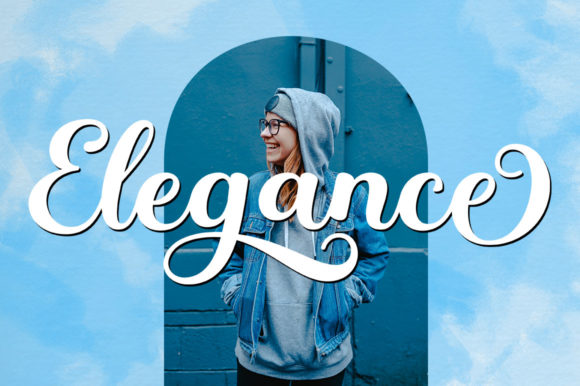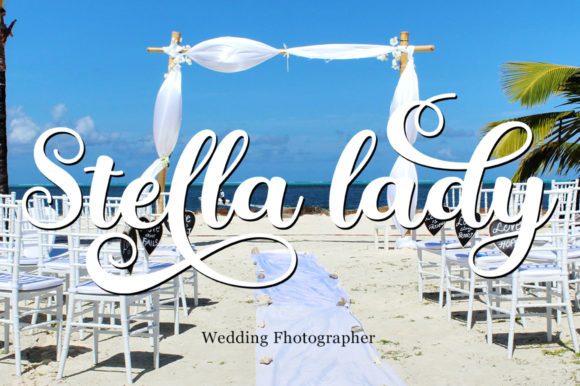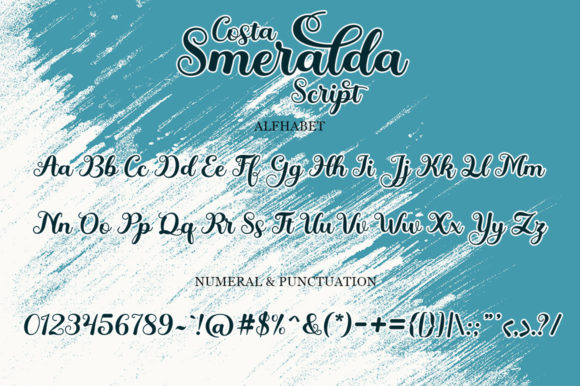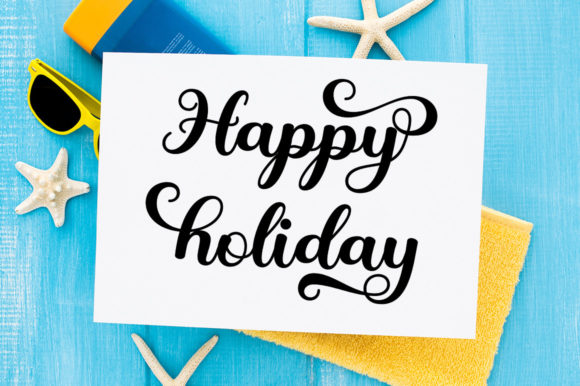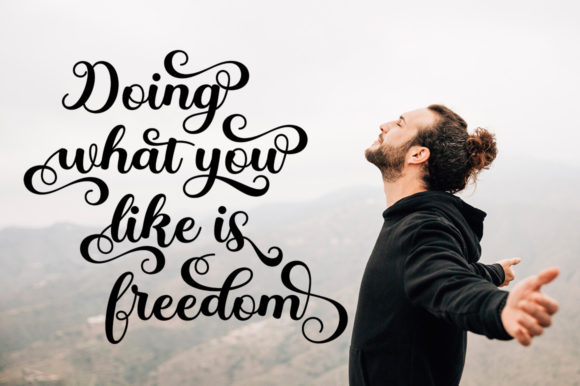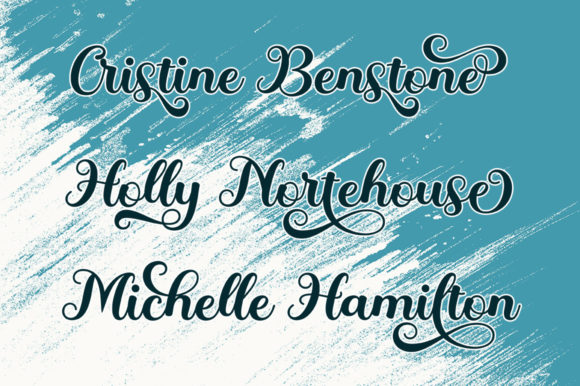
Costa Smeralda Script Font: Elevate Your Designs with Elegance and Sophistication
Are you a designer or crafter looking for a font that exudes class, elegance, and sophistication? Look no further than the Costa Smeralda Script Font. This beautifully designed round lettered handwritten font is sure to become a true favorite in your collection. With its perfect blend of traditional calligraphic influences and modern flair, Costa Smeralda Script is the ideal choice for a wide range of design projects.
What Makes Costa Smeralda Script Font So Special?
Costa Smeralda Script Font is a masterfully designed font that boasts a unique and distinctive look. Its round lettered handwritten style gives it a friendly and approachable feel, while its calligraphic influences add a touch of sophistication and elegance. This font is perfect for designers and crafters who want to add a personal touch to their work without sacrificing professionalism.
One of the standout features of Costa Smeralda Script Font is its PUA (Private Use Area) encoding. This means that you can access all of the glyphs and swashes with ease, giving you complete creative control over your designs. Whether you’re looking to add a decorative touch or create a bold statement, Costa Smeralda Script Font has got you covered.
Key Features of Costa Smeralda Script Font
- Round Lettered Handwritten Style: Costa Smeralda Script Font features a beautiful round lettered handwritten style that is both friendly and elegant.
- Calligraphic Influences: This font boasts traditional calligraphic influences that add a touch of sophistication and class to your designs.
- PUA Encoded: With PUA encoding, you can access all of the glyphs and swashes with ease, giving you complete creative control over your designs.
- Contemporary and Fresh: Despite its traditional influences, Costa Smeralda Script Font feels contemporary and fresh, making it perfect for modern design projects.
Uses for Costa Smeralda Script Font
Costa Smeralda Script Font is a versatile font that can be used for a wide range of design projects. Here are just a few ideas to get you started:
- Wedding Invitations and Stationery: Add a touch of elegance and sophistication to your wedding invitations and stationery with Costa Smeralda Script Font.
- Branding and Packaging: Use Costa Smeralda Script Font to create beautiful and eye-catching branding and packaging for your business or product.
- Signage and Displays: This font is perfect for creating eye-catching signage and displays that are sure to grab attention.
- Digital Designs: Costa Smeralda Script Font can be used for a wide range of digital designs, including social media graphics, blog headers, and more.
Tips for Using Costa Smeralda Script Font
Here are a few tips for getting the most out of Costa Smeralda Script Font:
- Experiment with Different Sizes and Colors: Don’t be afraid to experiment with different sizes and colors to find the perfect look for your design.
- Pair with Other Fonts: Costa Smeralda Script Font pairs beautifully with other fonts, so don’t be afraid to get creative and try out different combinations.
- Use Swashes and Glyphs: Take advantage of the PUA encoding and use the swashes and glyphs to add a decorative touch to your designs.